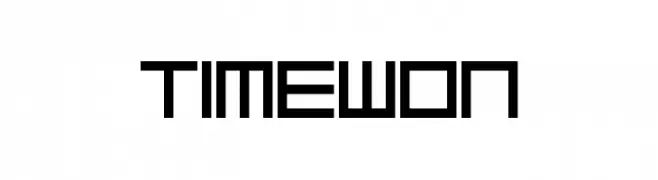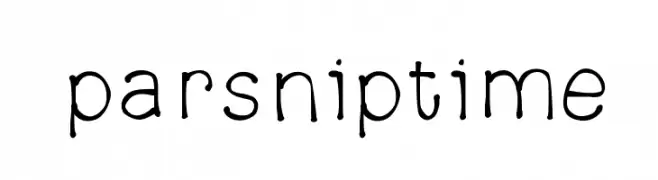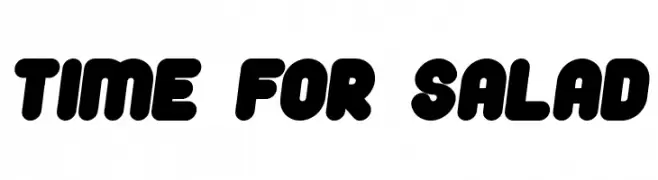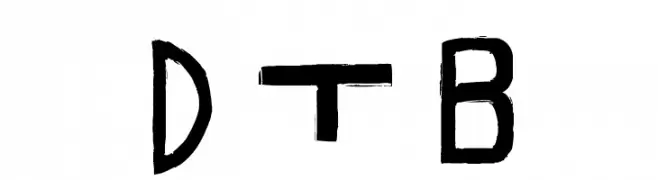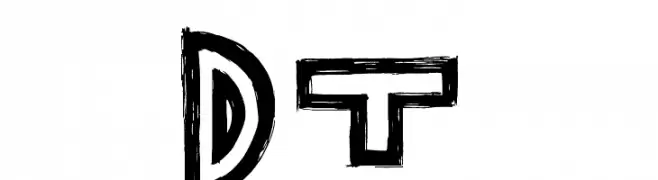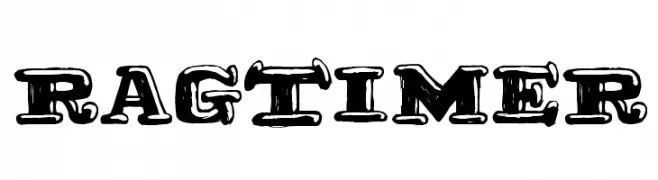
A geometric, blocky font with a futuristic, digital appearance.
A playful, hand-drawn font with a whimsical and casual style.
A bold, playful font with rounded edges and a slightly condensed style.
A bold, rounded, and playful font with a cohesive and friendly appearance.
A modern, geometric font with uniform width and balanced characters.
A modern, geometric font with rounded edges and balanced character spacing.
A bold collection of military-themed icons with consistent style and strong visual impact.
A bold, brush-like font with a dynamic and edgy appearance.
A bold, hand-drawn font with a sketch-like, edgy appearance.
A bold, decorative font with a vintage style and intricate design elements.